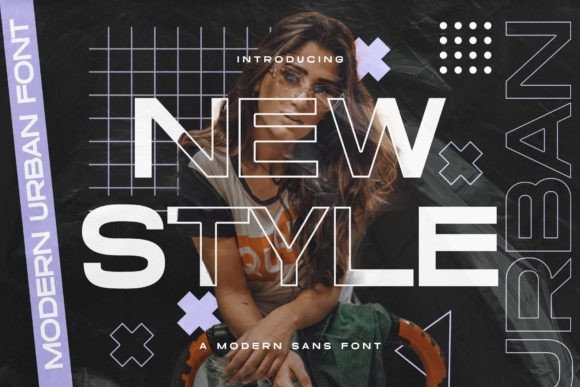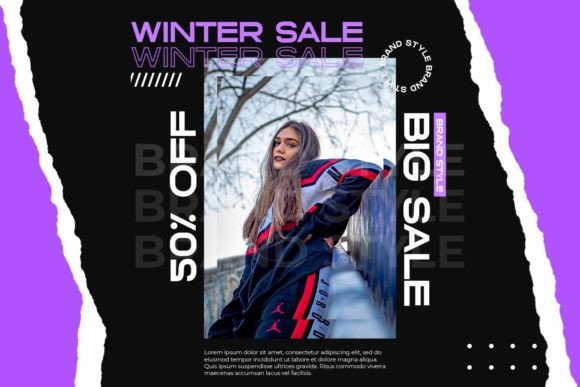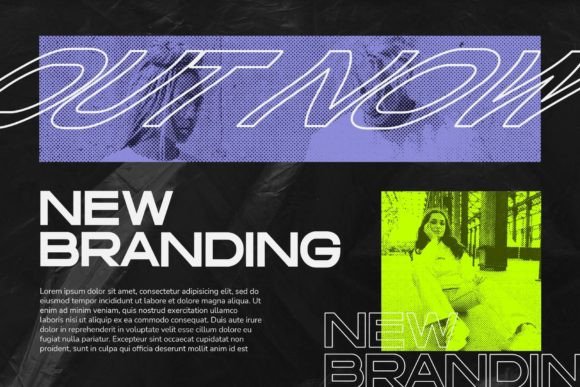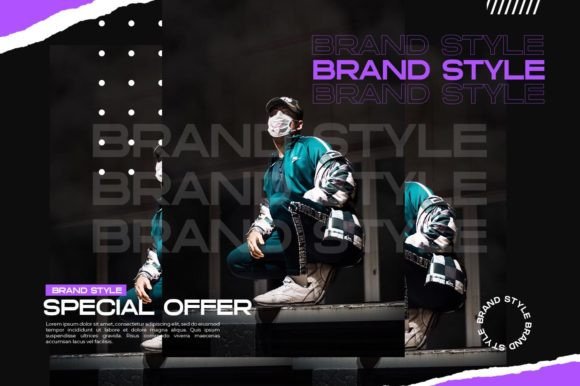
New Style Font
About the New Style Font
Explore the possibilities with New Style Font, a font that offers both beauty and functionality. New style is an electric and eye-catching sans serif font that has sleek lines and smooth curves, giving it a modern and stylish look. Its sharp and bold appearance will stand out in any design and make a statement. Perfect for headlines, logos, and more!
New Style Font excels in headline applications, short impactful statements, and logo design where its bold presence commands attention. It’s ideal for branding projects targeting a modern, sophisticated audience, particularly in fashion, technology, and luxury goods. Avoid using it for extensive body text or UI elements; the strong forms can become visually overwhelming and hinder readability in smaller sizes or extended use.
For optimal pairings, consider complementing its boldness with a clean, neutral sans-serif like Open Sans for body copy, or a delicate serif like Garamond for a touch of classic elegance. A playful script font such as Pacifico could also be incorporated for secondary text elements, creating a balanced contrast.
The overall personality of New Style Font is confident and modern, projecting a sense of sophistication and high energy. Its sleek lines and sharp geometry lend themselves to designs that demand attention and convey a sense of authority.